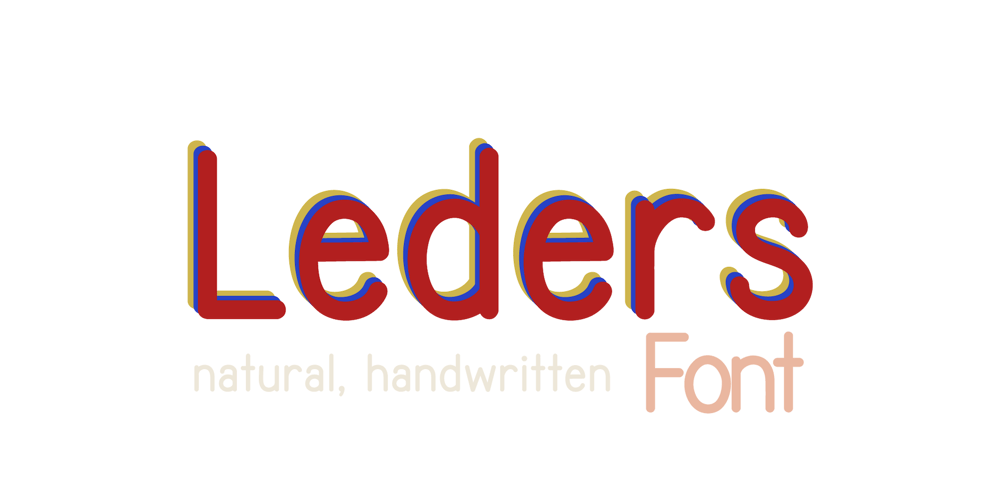
Leders Font Family was designed by Jess J and published by Type Avenue. Leders contains 1 styles and family package options. Leders is a natural handwritten font structured for legibility and clarity. It features soft glyphs in a monoline style that’s perfect for labeling or even for home organization.